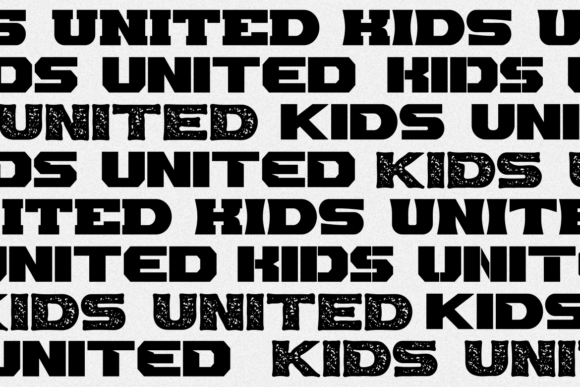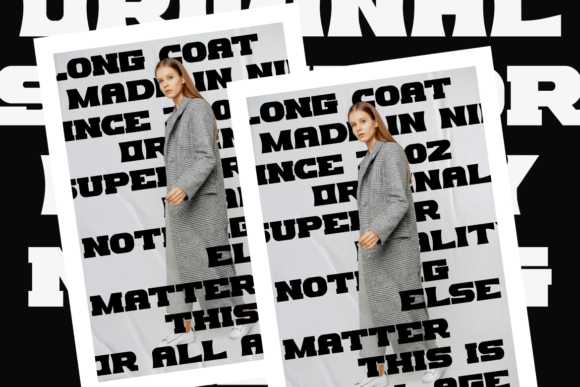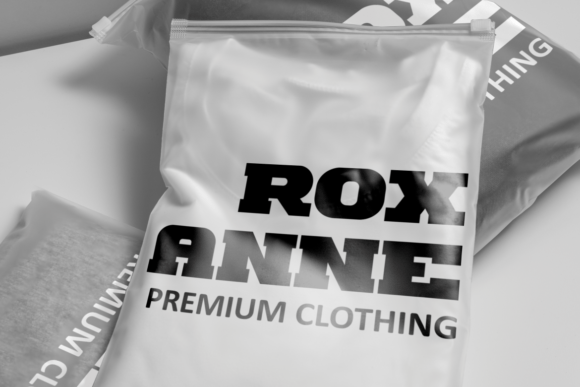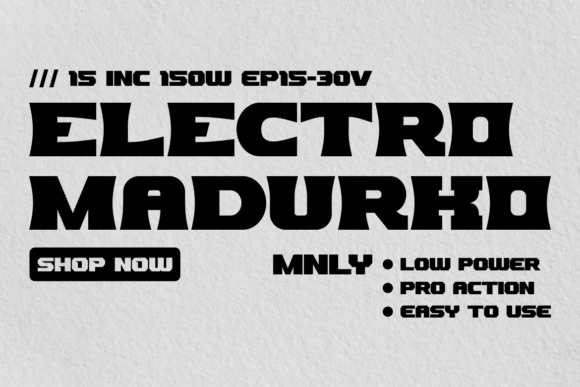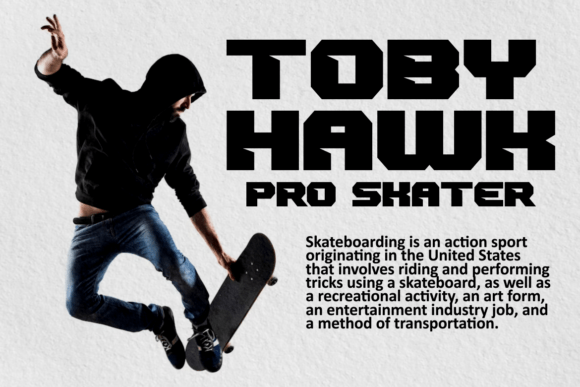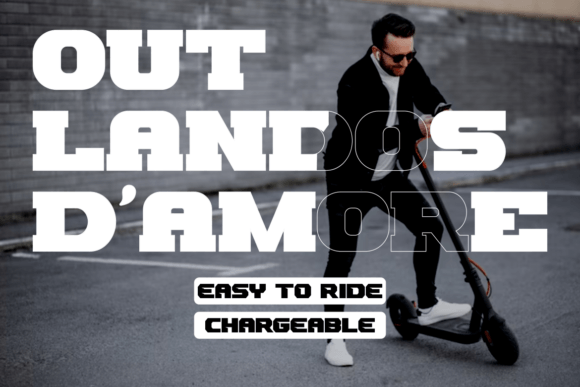
Introduction to Marseilazi Font
Have you ever stared at a blank canvas, eager to bring your creative project to life, only to be overwhelmed by the endless possibilities of font choices? We’ve all been there – searching for the perfect typography to convey our message, evoke emotions, and leave a lasting impression. That’s where the Marseilazi Font comes in – a game-changing design resource that’s about to revolutionize your creative process.
With its 9-strong bold style, this high-quality font is not just a visual statement, but a powerful tool in your design arsenal. Whether you’re working on logos, titles, headlines, or business materials, the Marseilazi Font delivers an impactful presence that’s sure to grab attention. And the best part? Its versatility makes it easy to integrate with various themes and fonts, giving you the freedom to experiment and push the boundaries of your creativity.
- Features a unique, modern design with a clean and elegant aesthetic
- Perfect for use in graphic design, web design, and digital art projects
Honest Review: Marseilazi Font
I recently had the chance to work with the Marseilazi Font on a creative project, and I must say I was quite impressed. As a designer, I always look for high-quality design resources that can elevate my work, and this font definitely delivers.
- ✨ Unique design: The Marseilazi Font has a distinctive style that sets it apart from other fonts in its category.
- ✨ Versatility: It can be used for a wide range of creative projects, from branding and logos to digital products and print materials.
One of the standout features of the Marseilazi Font is its transparent background, which allows for seamless integration with any design element.
While the Marseilazi Font is an excellent design resource, there are a few limitations to consider:
- ⚠️ Limited character set: The font’s character set is limited, which may not be suitable for complex text-based projects.
- ⚠️ Not ideal for small text: The font’s design may not be legible when used for small text sizes.
Overall, I’m thoroughly impressed with the Marseilazi Font. Its unique design, versatility, and high quality make it a valuable addition to any designer’s toolkit. While it may have some limitations, it’s an excellent choice for many creative projects.
Designing with Marseilazi Font
Tips for Getting the Most Out of Marseilazi Font
To get the most out of the Marseilazi Font, use it on a transparent background to create a subtle, elegant look. Experiment with different font sizes and colors to add depth and interest to your design. You can also use the font in combination with other design elements to create a unique and eye-catching visual effect.
Common Use Cases for Marseilazi Font
The Marseilazi Font is ideal for a variety of creative projects, including branding, marketing materials, and digital designs. It’s also perfect for creating invitations, posters, and other visual materials that require a high-quality, elegant touch.